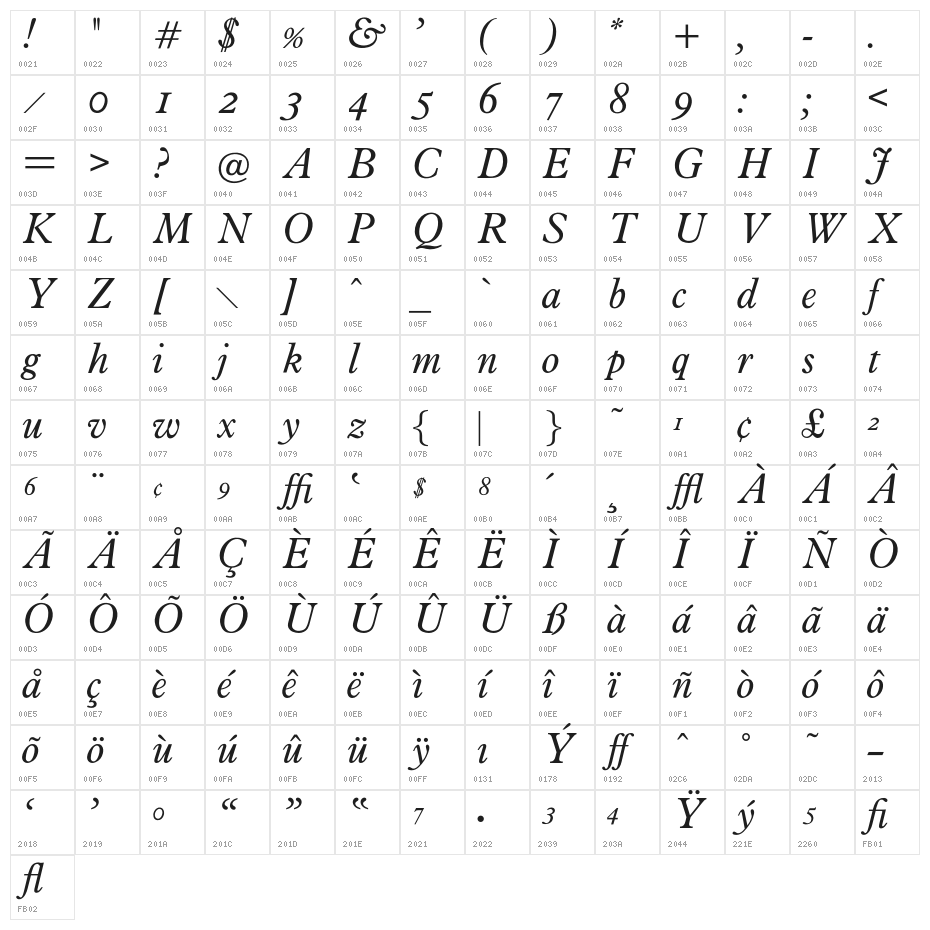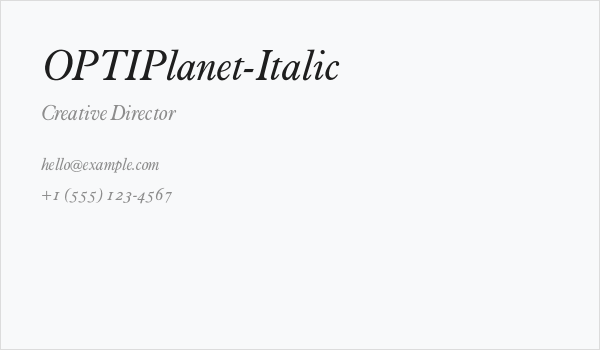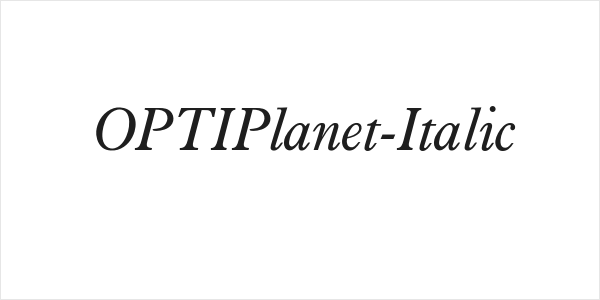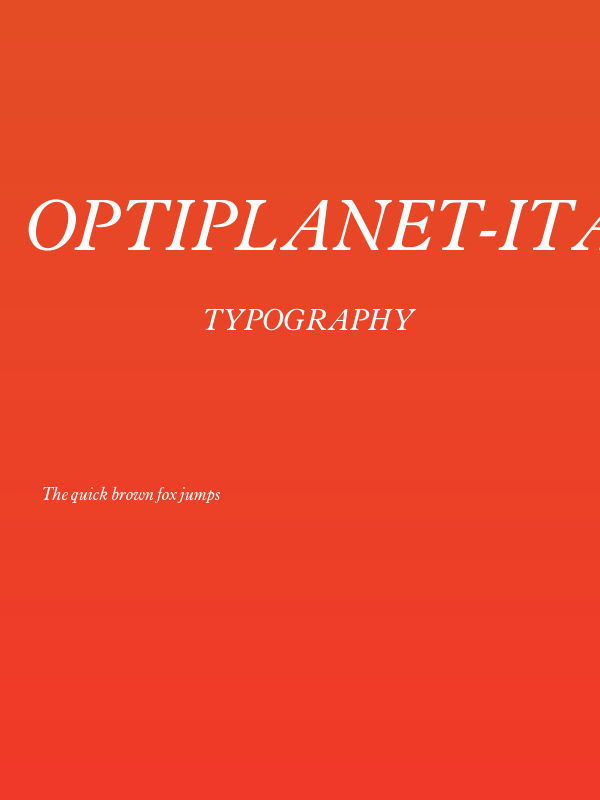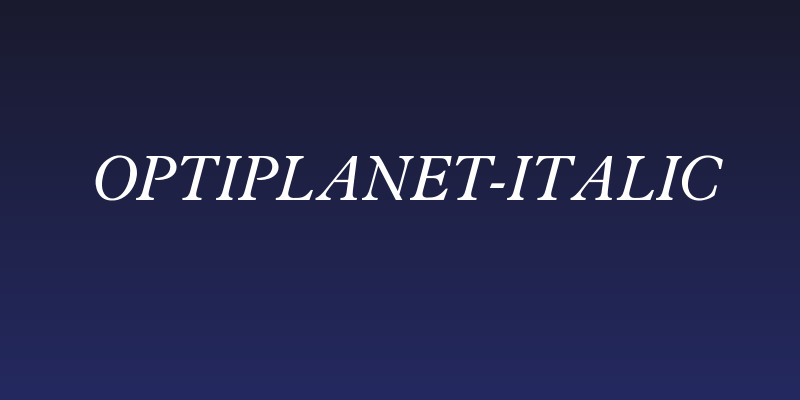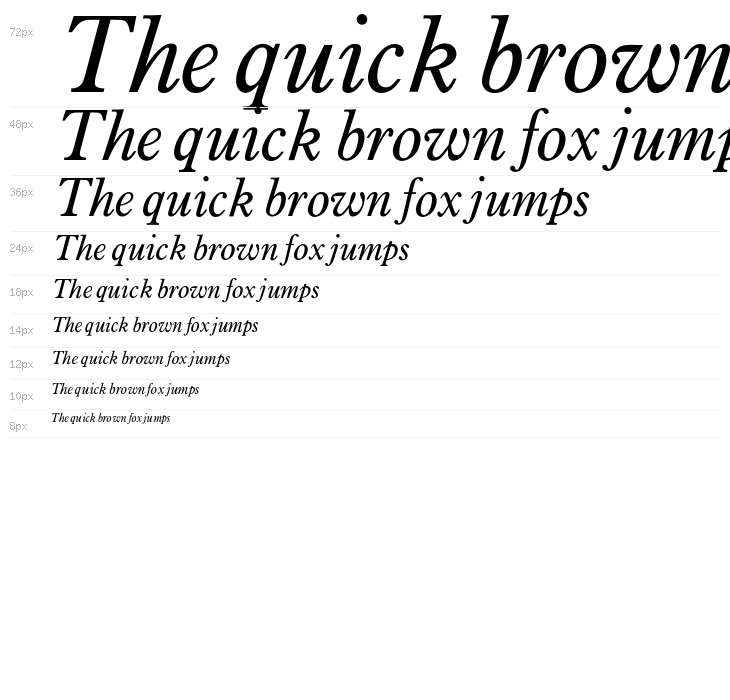
OPTIPlanet-Italic Font
OPTIPlanet-Italic Description
This font features an elegant italic style with a classic serif design. The characters have a distinct slant, adding a sense of motion and sophistication. The serifs are pronounced, providing a traditional feel, while the overall form maintains a refined and graceful appearance. The uppercase letters are tall and commanding, while the lowercase letters are more rounded and approachable. The numerals are consistent with the letterforms, ensuring a cohesive look. Special characters are included, offering versatility for various uses.
Overall StyleClassic
Proposed ProjectsIdeal for formal invitations, elegant branding, book covers, and editorial design.